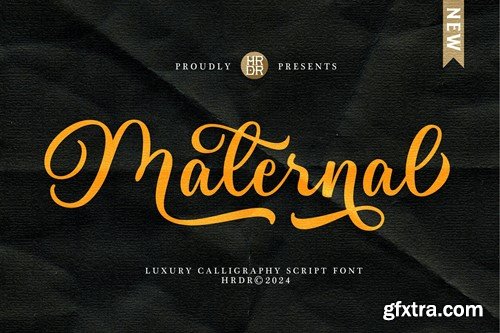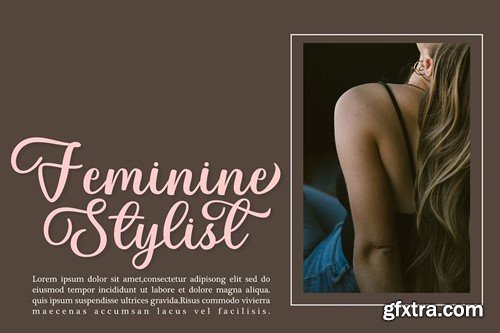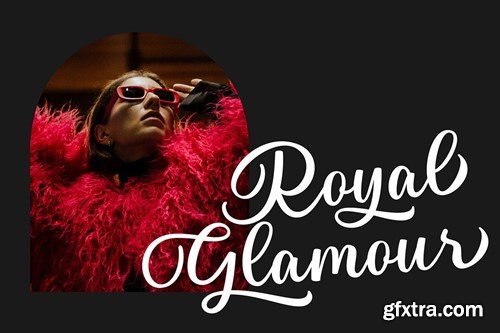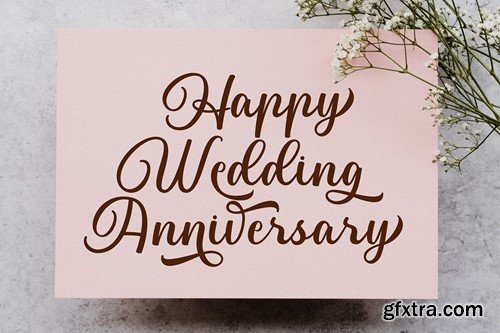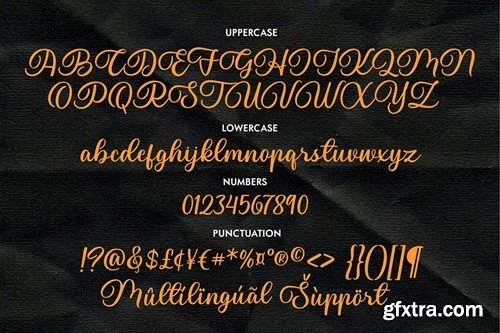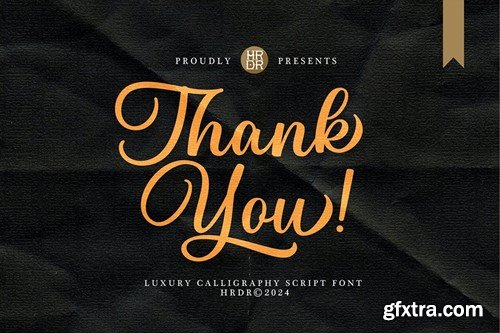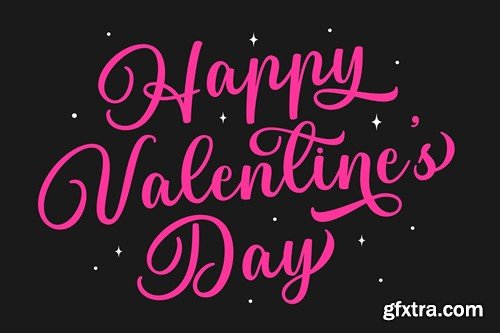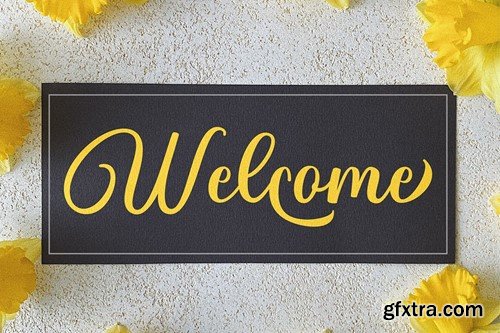
Maternal - Luxury Calligraphy Font
Maternal Font is a modern and luxury Calligraphy font. It's perfect for branding, wedding invitations, photography, Neon Sign, bloggers, logos, greeting cards, Logo, Quotes and more. Font Features : Maternal files with OTF and TTF file and support PUA Encoded font files for use with software that doesn't support OpenType features such as Silhouette, Inkscape, etc. All of features and special characters of this font are included in one file. So it is easy to accessed by using program or software that support the opentype like Adobe Illustrator, Adobe Photosop, and Adobe Indesign).